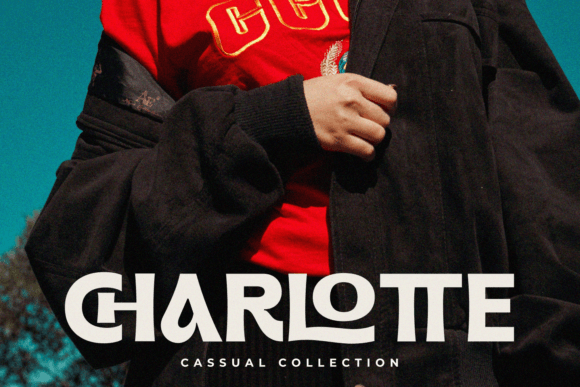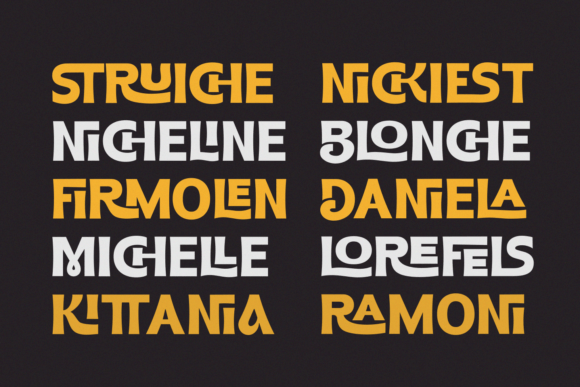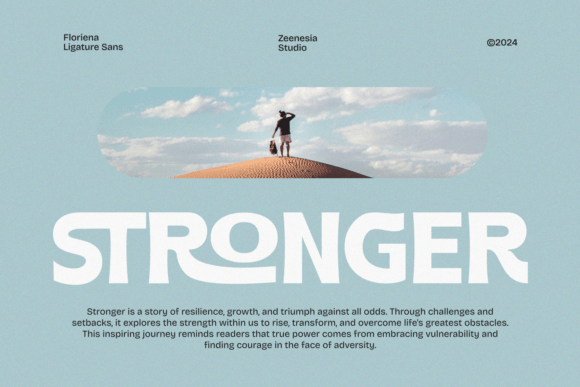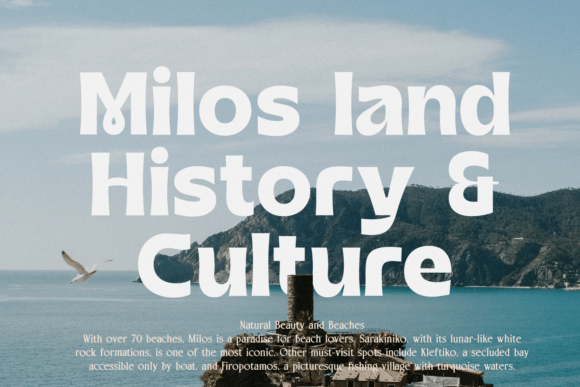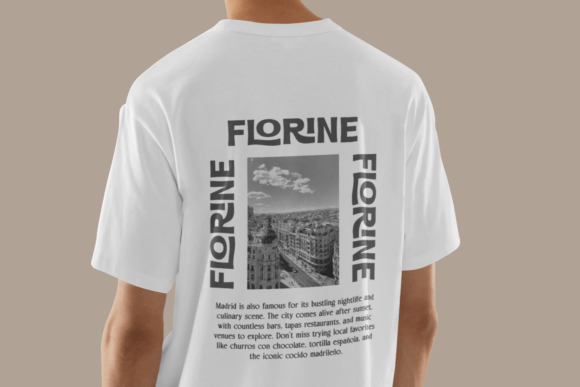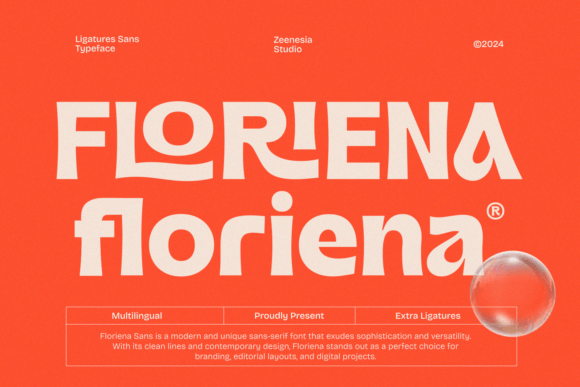
Discover the Elegance of Floriena Font: A Timeless Typeface for Creative Projects
Are you searching for a typeface that embodies the perfect blend of classic sophistication and modern flair? Look no further than Floriena Font, a graceful and enchanting font that is sure to captivate your audience. With its elegantly crafted curves and refined letterforms, Floriena seamlessly combines the best of both worlds, creating a harmonious flow that elevates the visual appeal of any project.
The Design of Floriena Font
Floriena’s design is characterized by its meticulously crafted curves and refined letterforms, which work in harmony to create a sense of fluidity and elegance. The font’s classic beauty is perfectly balanced with contemporary flair, making it an ideal choice for designers and crafters seeking a typeface that exudes both style and personality.
One of the standout features of Floriena is its delicate balance of modern elegance and vintage-inspired details. This unique blend of old and new creates a timeless charm that sets Floriena apart from other typefaces. Whether you’re working on a branding project, wedding invitation, or editorial layout, Floriena’s versatility and creative possibilities make it the perfect choice.
Enhancing Creativity with Ligatures and Alternate Characters
To further enhance the creative possibilities of Floriena, a variety of meticulously designed ligatures and alternate characters have been added. These features offer even more versatility and artistry to any project, allowing designers and crafters to add a sense of sophistication and elegance to their work.
The ligatures and alternate characters in Floriena are designed to add a touch of personality to your project. Whether you’re looking to create a unique brand identity or add a special touch to your wedding invitation, these features provide the perfect opportunity to let your creativity shine.
Floriena’s versatility makes it the perfect choice for a wide range of projects, including:
- Branding: Create a lasting impression with Floriena’s elegant and sophisticated design, perfect for logos, business cards, and more.
- Wedding Invitations: Add a touch of romance and elegance to your wedding invitation with Floriena’s beautiful and refined letterforms.
- Editorial Layouts: Elevate your editorial layout with Floriena’s harmonious flow and timeless charm, perfect for magazines, newspapers, and more.
Why Choose Floriena Font?
So why choose Floriena Font for your next project? Here are just a few reasons:
- Timeless Charm: Floriena’s unique blend of classic beauty and modern flair creates a timeless charm that will never go out of style.
- Versatility: With its ligatures and alternate characters, Floriena offers endless creative possibilities for designers and crafters.
- Elegance: Floriena’s refined letterforms and elegantly crafted curves make it the perfect choice for projects that require a touch of sophistication and elegance.
Whether you’re a designer, crafter, or simply someone who appreciates beautiful typography, Floriena Font is sure to captivate your audience. With its delicate balance of modern elegance and vintage-inspired details, Floriena is the perfect choice for anyone seeking a typeface that radiates both style and personality.
In conclusion, Floriena Font is a truly unique and captivating typeface that is sure to elevate the visual appeal of any project. With its elegant design, versatile features, and timeless charm, Floriena is the perfect choice for designers and crafters seeking a typeface that embodies both style and personality. So why wait? Discover the elegance of Floriena Font today and take your creative projects to the next level.